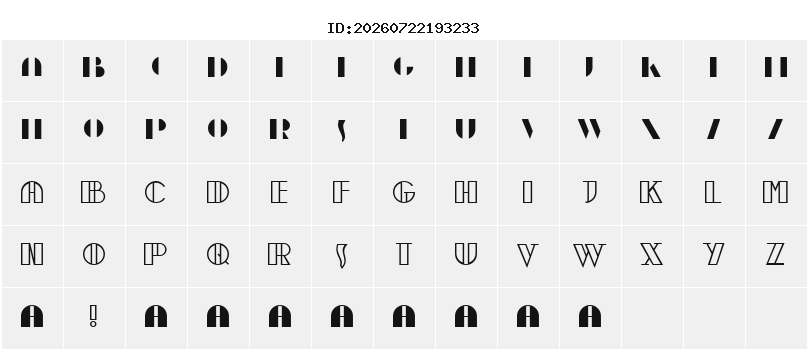
• Font Name: moebius
• Designer: Peter Wiegel
• Manufacturer: Peter Wiegel
About moebius.ttf
moebius.ttf is a modern, elegant sans-serif font designed for ultimate readability and visual harmony. Perfect for branding, headlines, web design, and print materials.